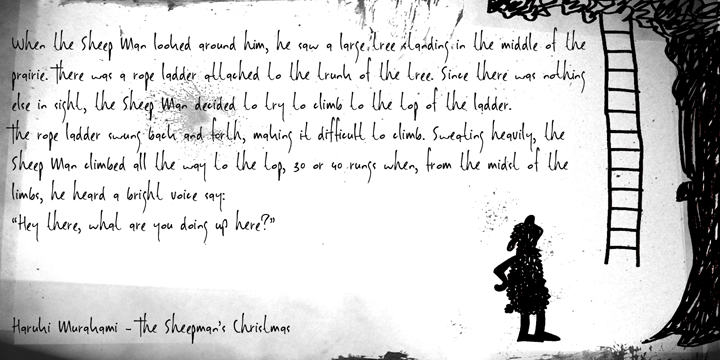
Note of the authorDK Sheepman font is named after my favorite Haruki Murakami character. This particular version is the demo/donationware one, but a full version is also available. It comes with kerning, calt, salt and an extensive arrangement of ligatures. Just contact me for pricing.